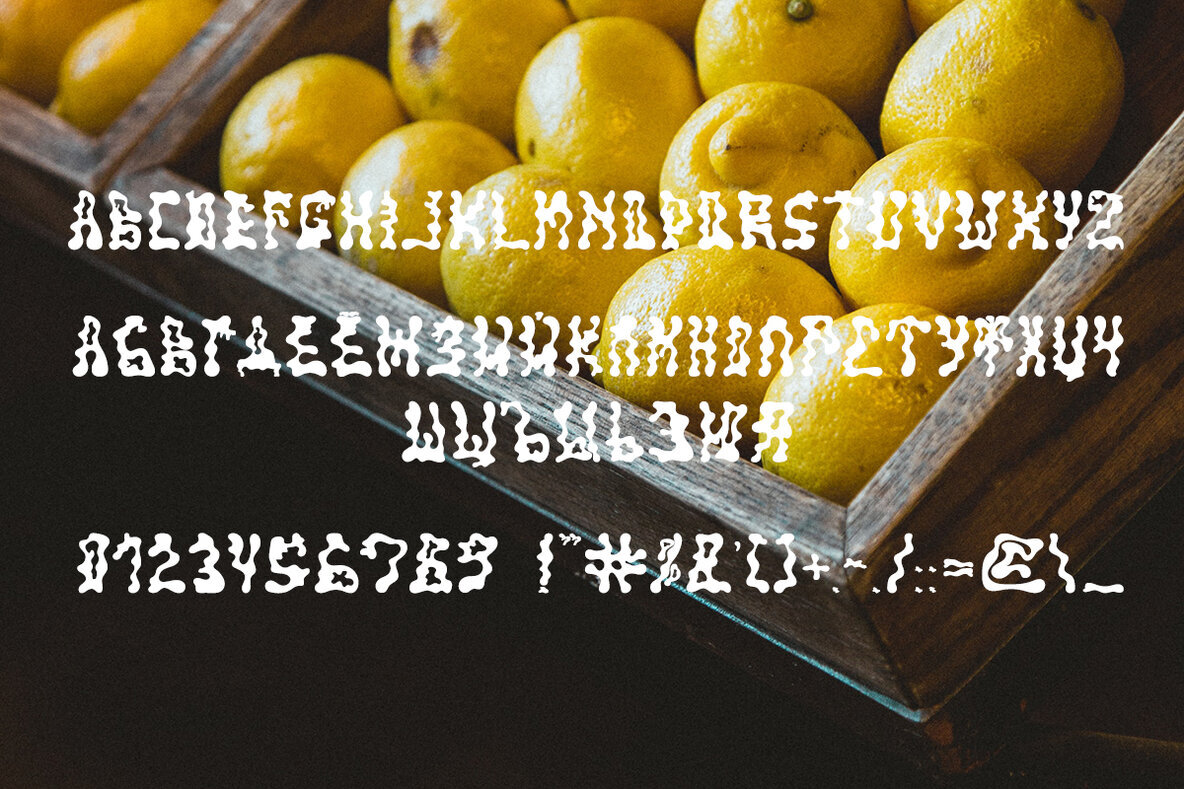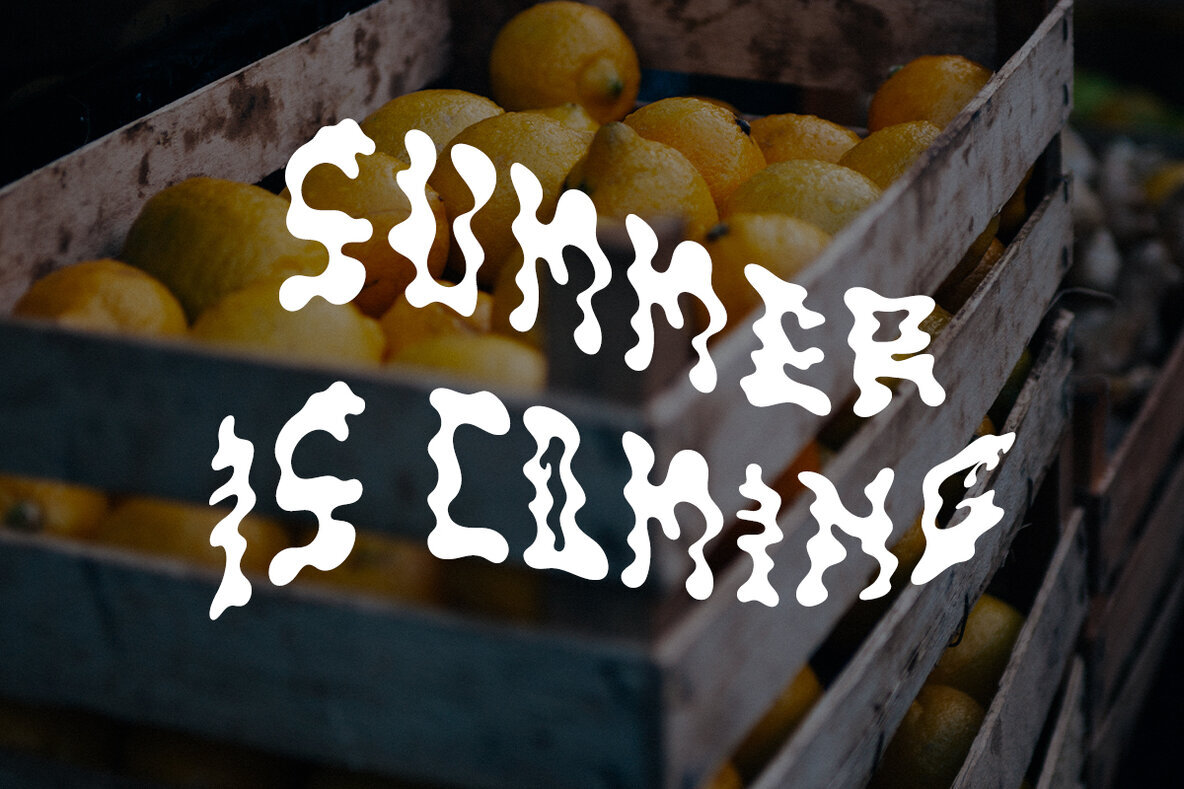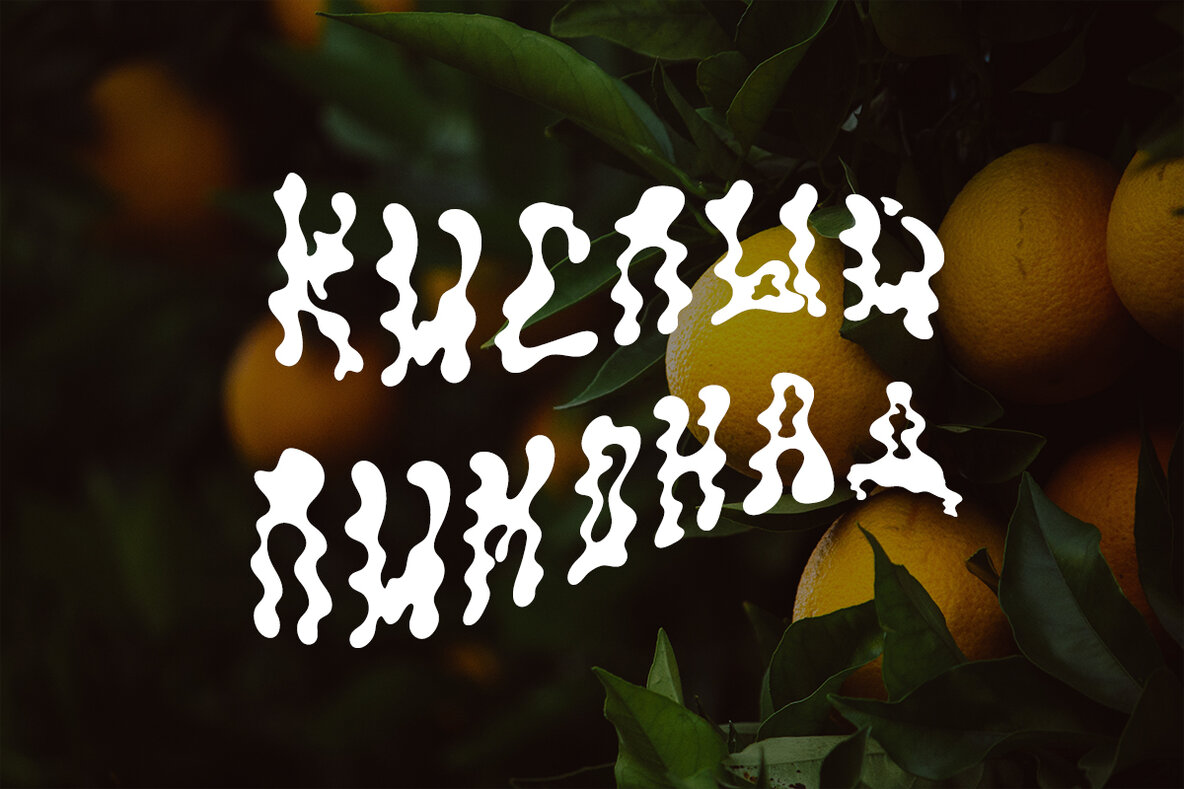
SOUR LEMONADE
Sour Lemonade, featuring Latin and Cyrillic characters, numbers, base punctuation, and symbols, is the ideal font for a variety of design projects. Whether crafting a music festival poster or designing a juice bar logo, this font will make your work stand out. Its unique style, perfect for adding a touch of summer fun to your designs, is guaranteed to capture your audience's attention and leave a lasting impression. Enhance your designs with the zest of Sour Lemonade, which includes Latin, Cyrillic, Numbers, Base symbols, and punctuation characters.